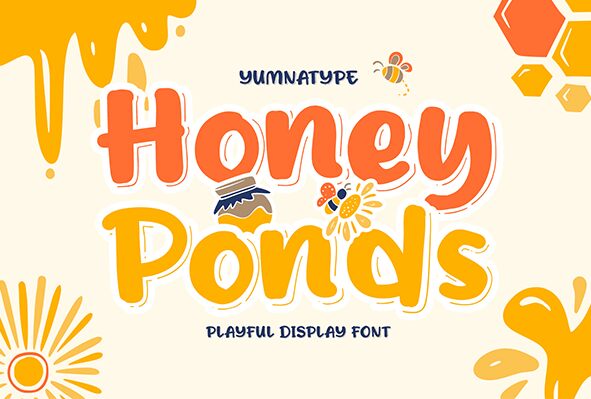
Honey Ponds font is a free cartoon display typeface from Yumna Family with a whimsical vibe and casual aesthetics. This friendly font has bold letter shapes, enhancing readability while simultaneously displaying its unique fresh design. Its thick black shapes also make it suitable for all types of print and digital projects.
Use Honey Ponds in branding, packaging design, blog posts, headers and titles, video games graphics, social media ads, posters, magazine layouts covers, product labels or logos.